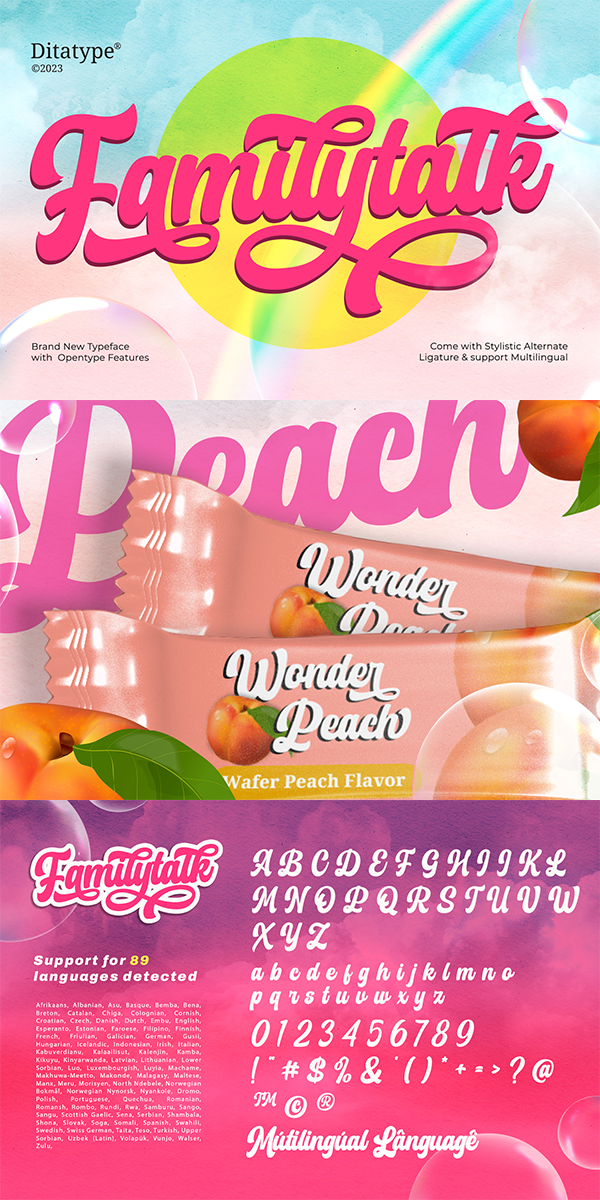
Familytalk Font
About Familytalk
Familytalk is a script font that exudes elegance in every character. With its thick and sturdy strokes, this font commands attention in any design. The swinging endings on certain letters provide a delightful sense of rhythm and flow to the text. These unique design elements create a sense of movement within the text, making it visually captivating and engaging.
Despite its thick weight, Familytalk maintains excellent legibility, making it suitable for a wide range of creative applications. Its ability to strike a balance between boldness and grace makes it a versatile choice for projects that demand a strong and stylish script font. In addition, enjoy the features here.
Familytalk fits in headlines, logos, movie posters, flyers, invitations, greeting cards, branding materials, print media, editorial layouts, headers, and many more. Find out more ways to use this font by taking a look at the font preview.